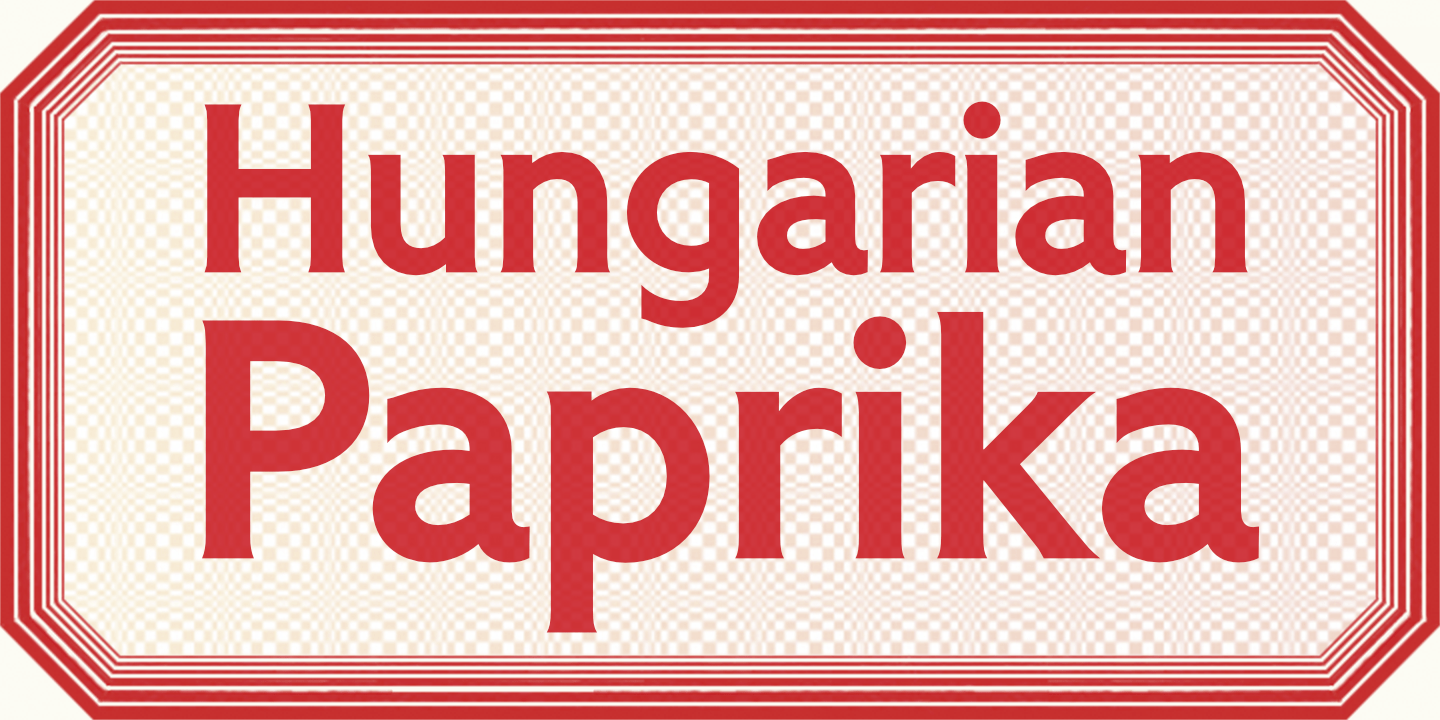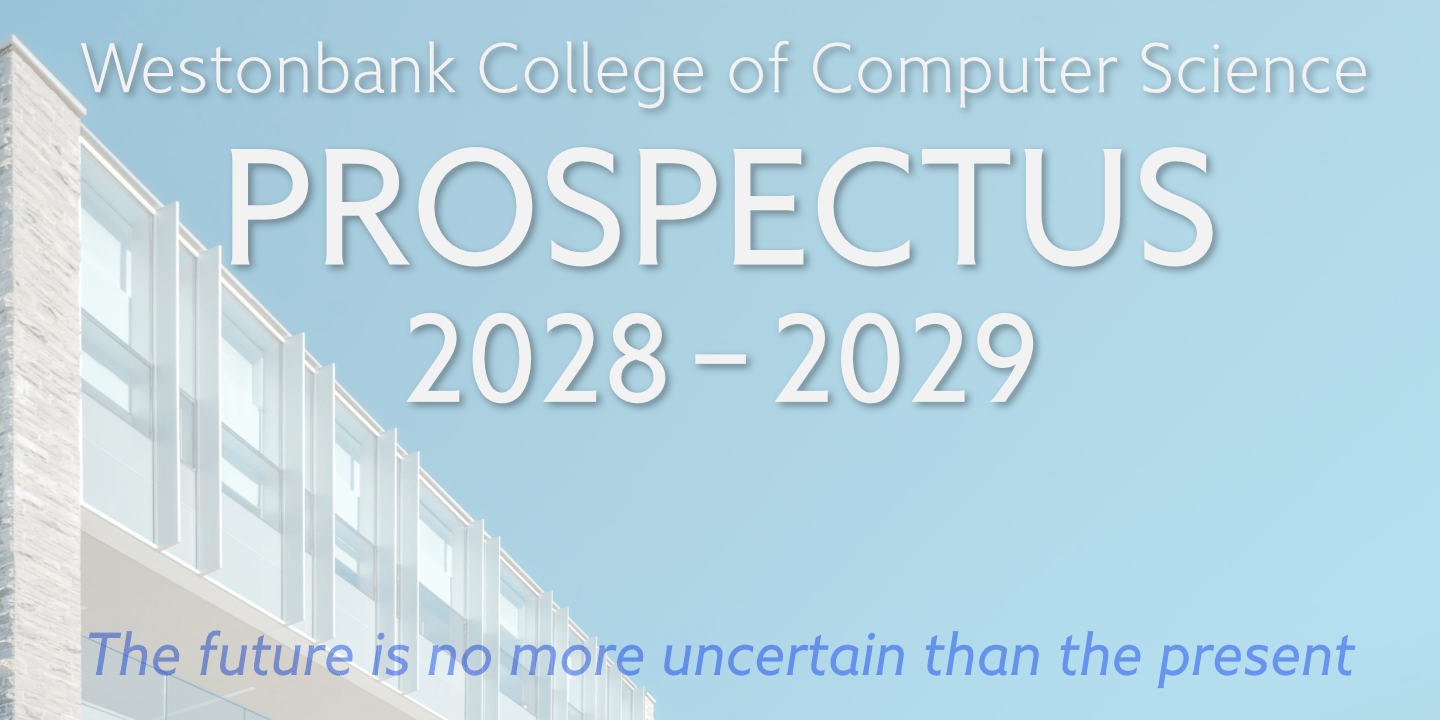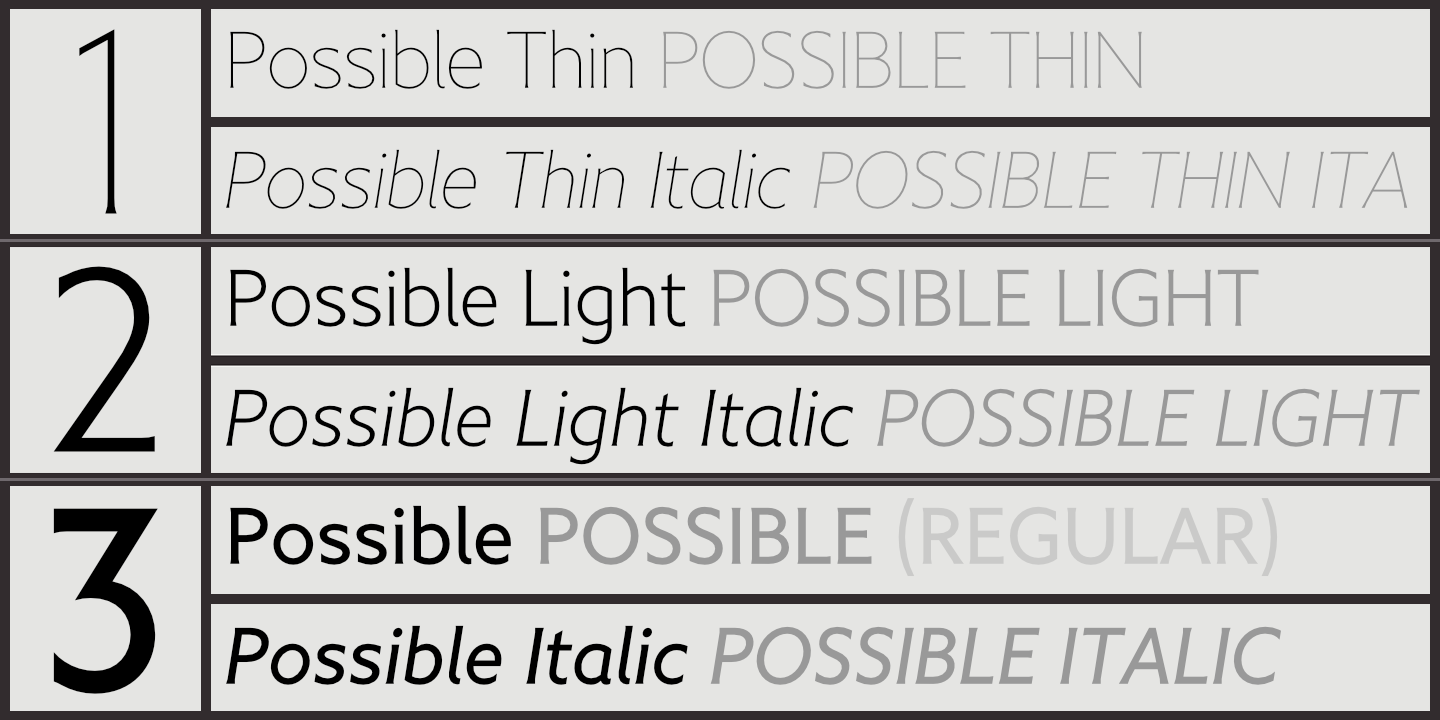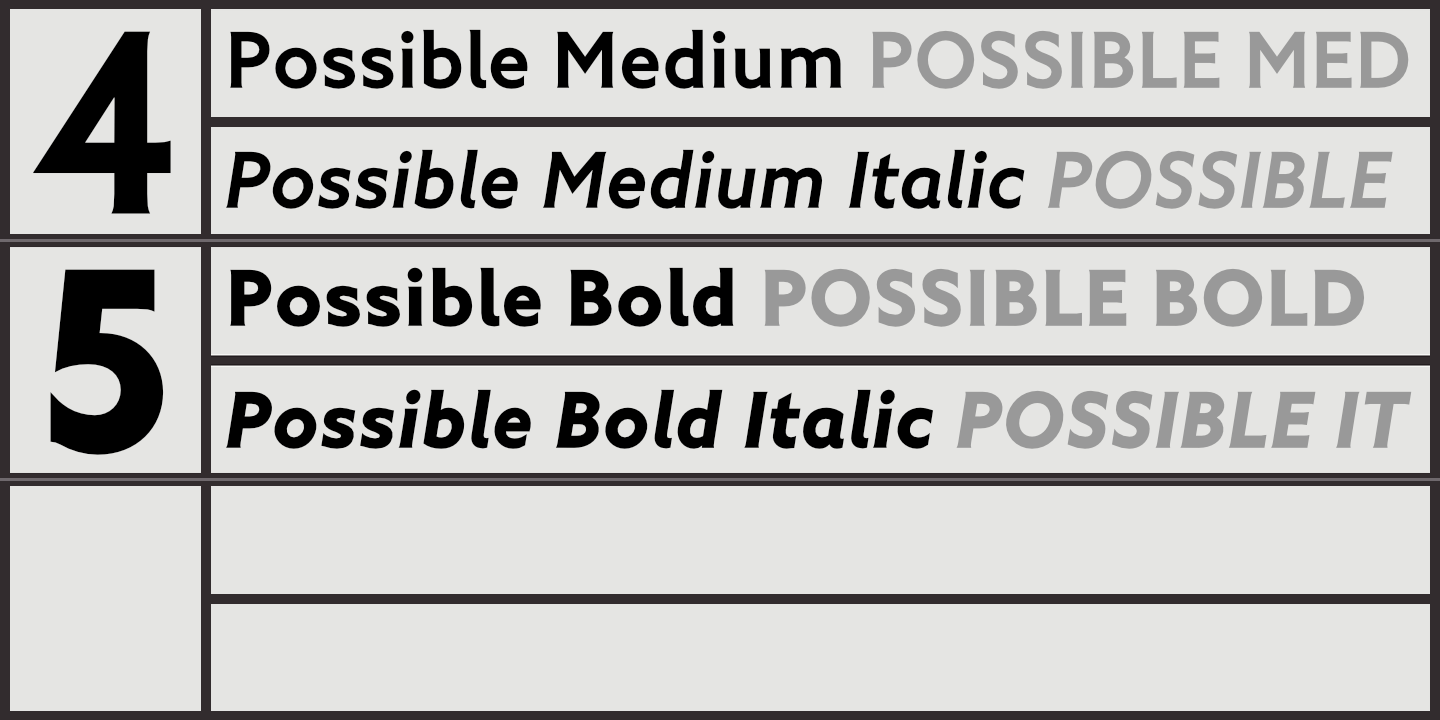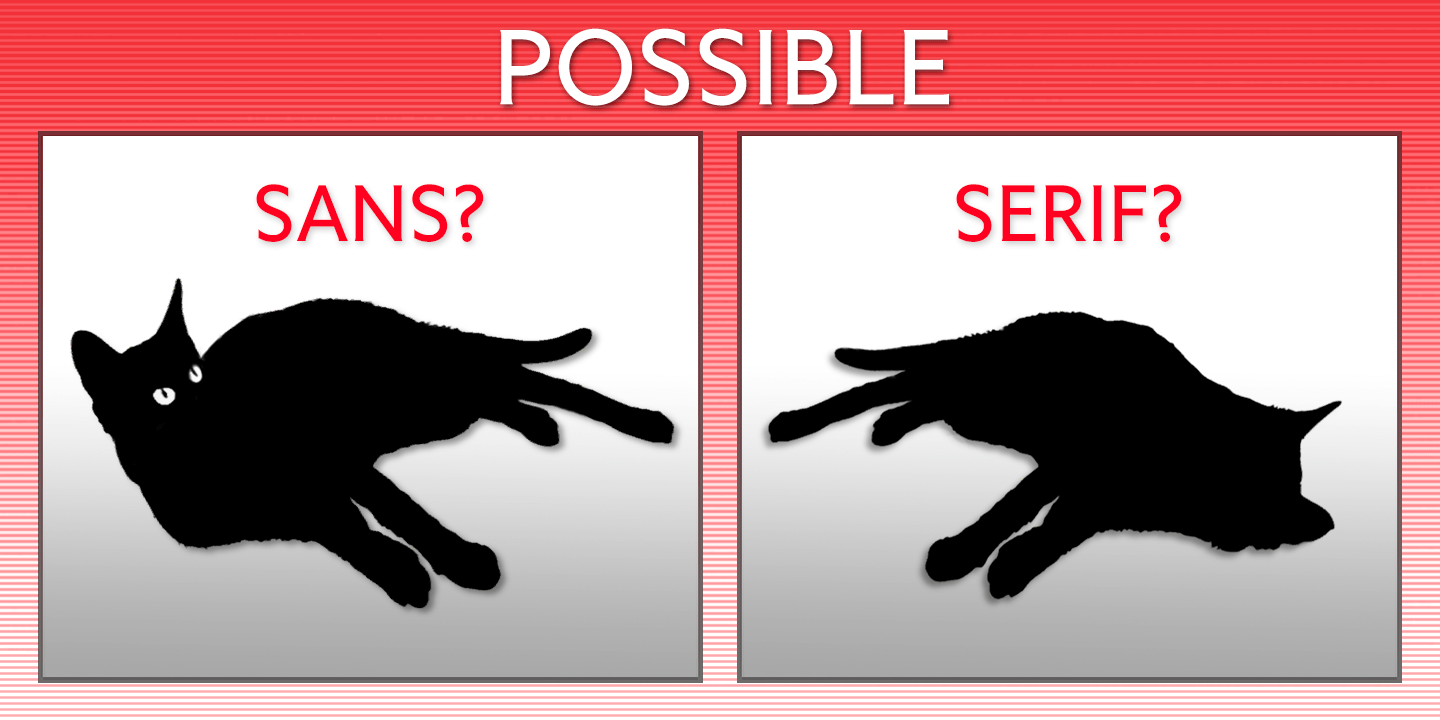
Possible
The Possible typeface is both sans and serif, either is possible. The typeface is a sans-serif impersonating a spur serif, or it's a glyphic with the look and feel of a sans. This clean, contemporary typeface is inspired by Percy J Delf Smith's…